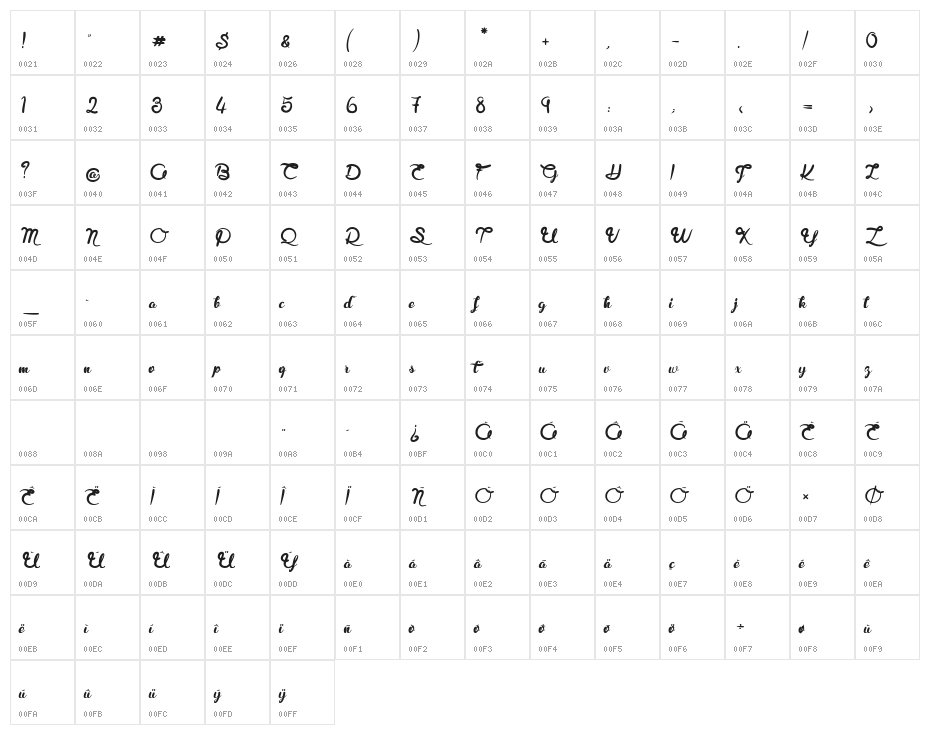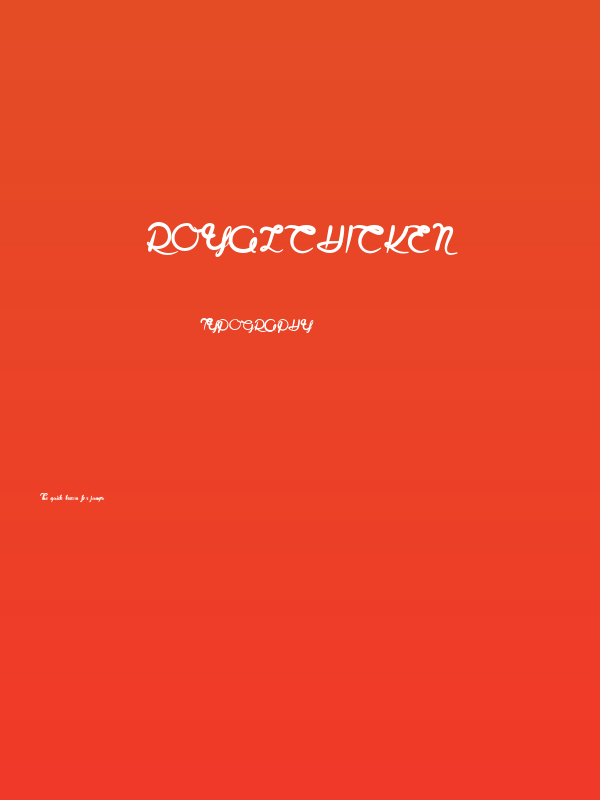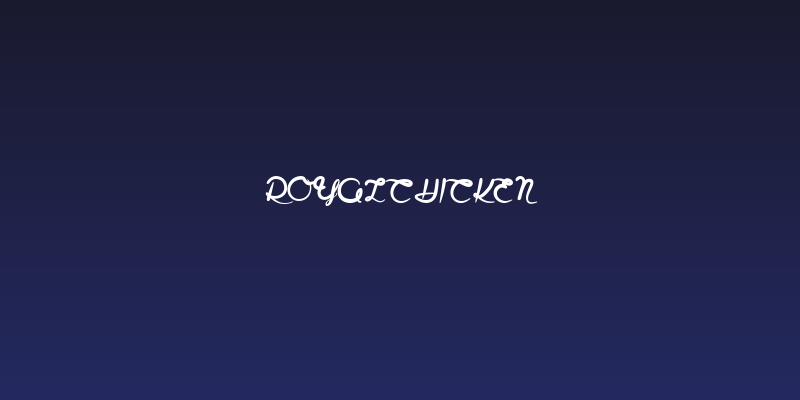
Royal Chicken Font
| Caso d'uso | Logos, Invitations, Decorative text |
| Progetti proposti | Ideal for wedding invitations, greeting cards, branding projects, and any design that requires a touch of elegance and sophistication. |